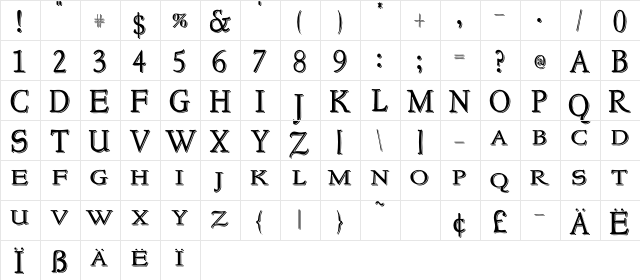
NewStyleTitling Embossed Regular
Design Context for NewStyleTitling Embossed Typeface
NewStyleTitling Embossed offers clean, dependable letterforms without strong stylistic allegiance, making it a practical choice for designers who need flexibility.